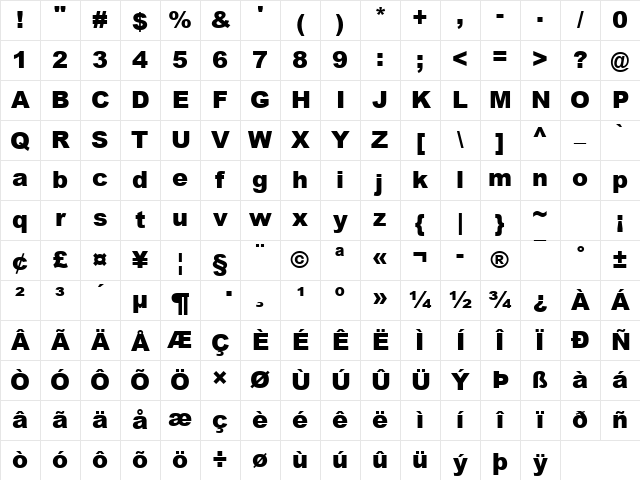
Arial MT Black Regular
Complete Arial MT Black Regular glyph index. Displaying only characters natively supported by Arial MT Black Regular font.
Design Context for Arial MT Black
Arial MT Black is a composed and adaptable typeface that performs quietly and consistently across a wide range of design contexts.
Pro Tip: Use Arial MT Black in both headline and body roles to test its range before committing to a single application.